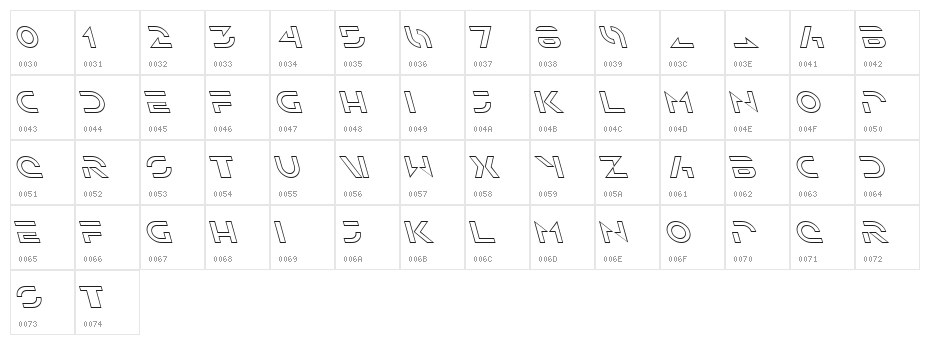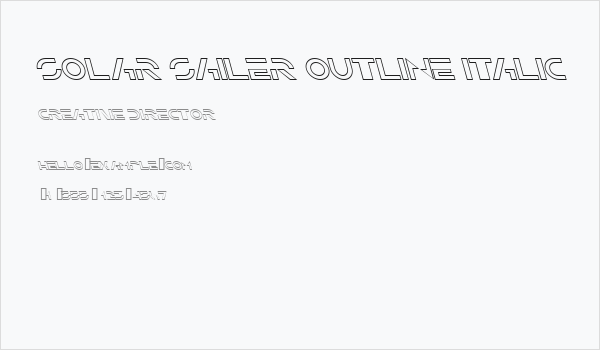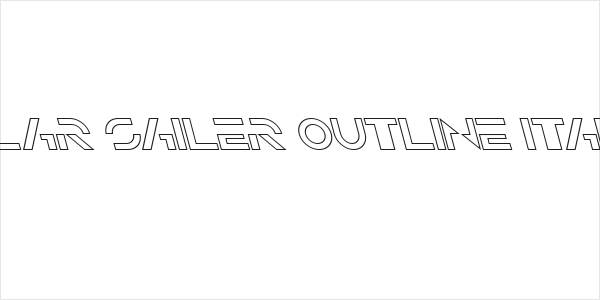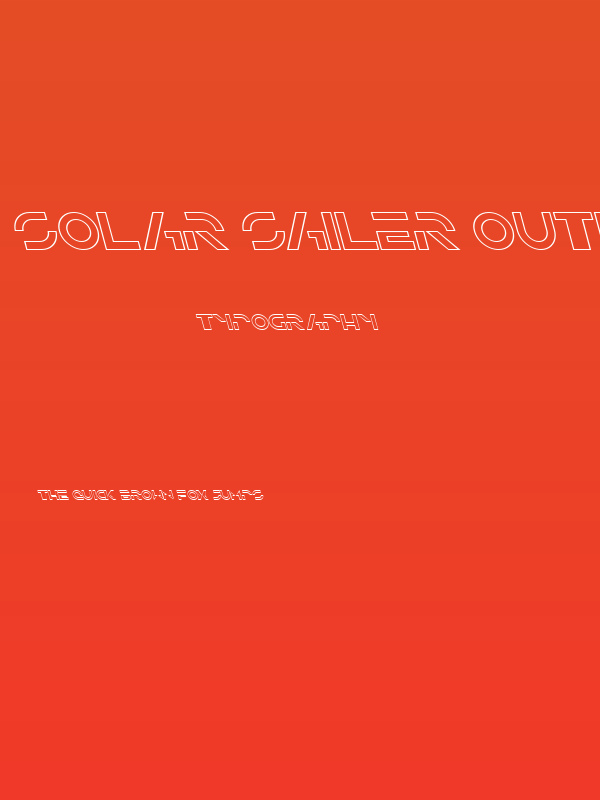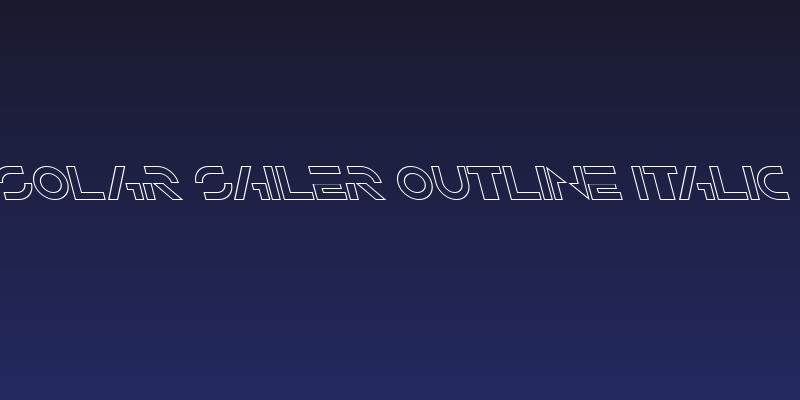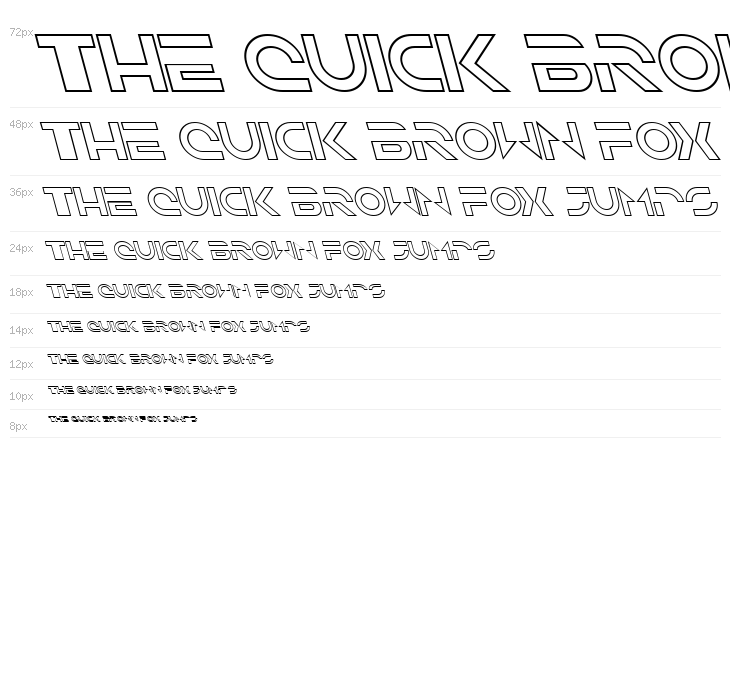
Solar Sailer Outline Italic Font
Solar Sailer Outline Italic Description
This font features a futuristic and geometric design with an outlined style that gives it a sleek and modern appearance. The italicized slant adds a dynamic and forward-moving feel, making it ideal for projects that require a sense of motion or innovation. The characters are constructed with clean lines and sharp angles, creating a sense of precision and technological advancement. The uppercase and lowercase letters maintain a consistent style, while the numbers and special characters complement the overall aesthetic. This font is perfect for creative projects that aim to capture a sense of modernity and cutting-edge design.
| Proposed Projects | Ideal for tech branding, sci-fi posters, video game titles, and futuristic product packaging. |